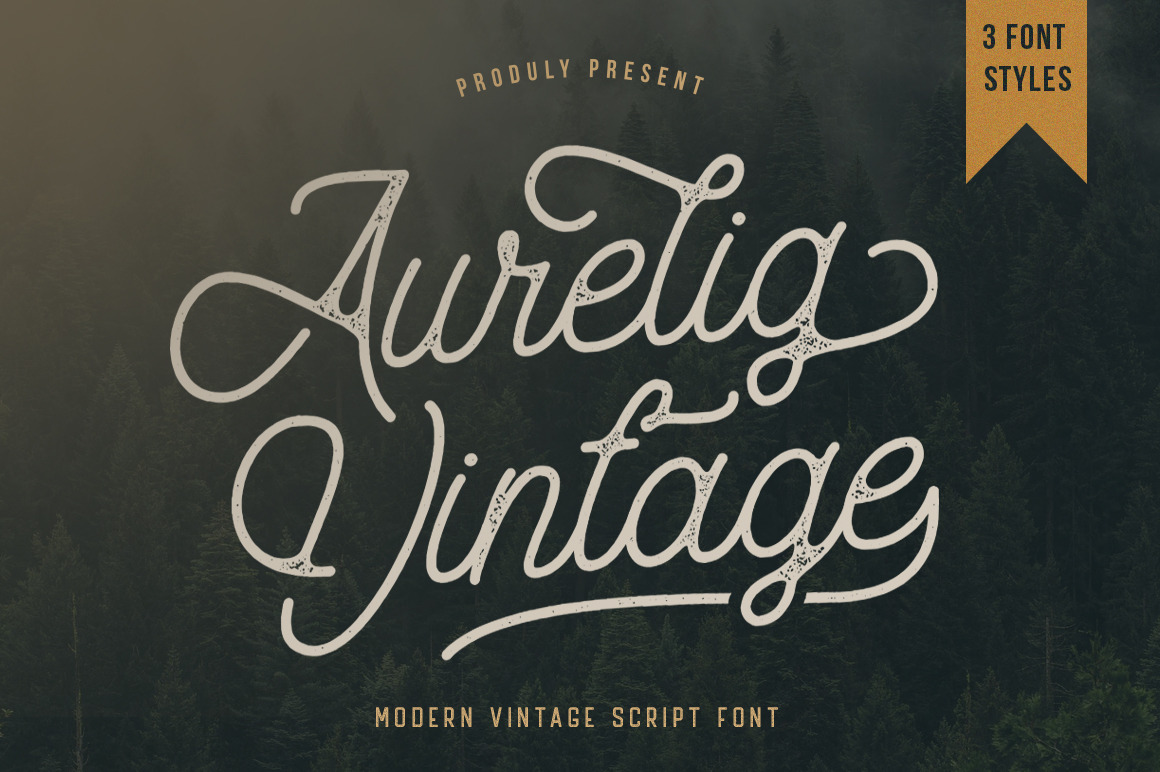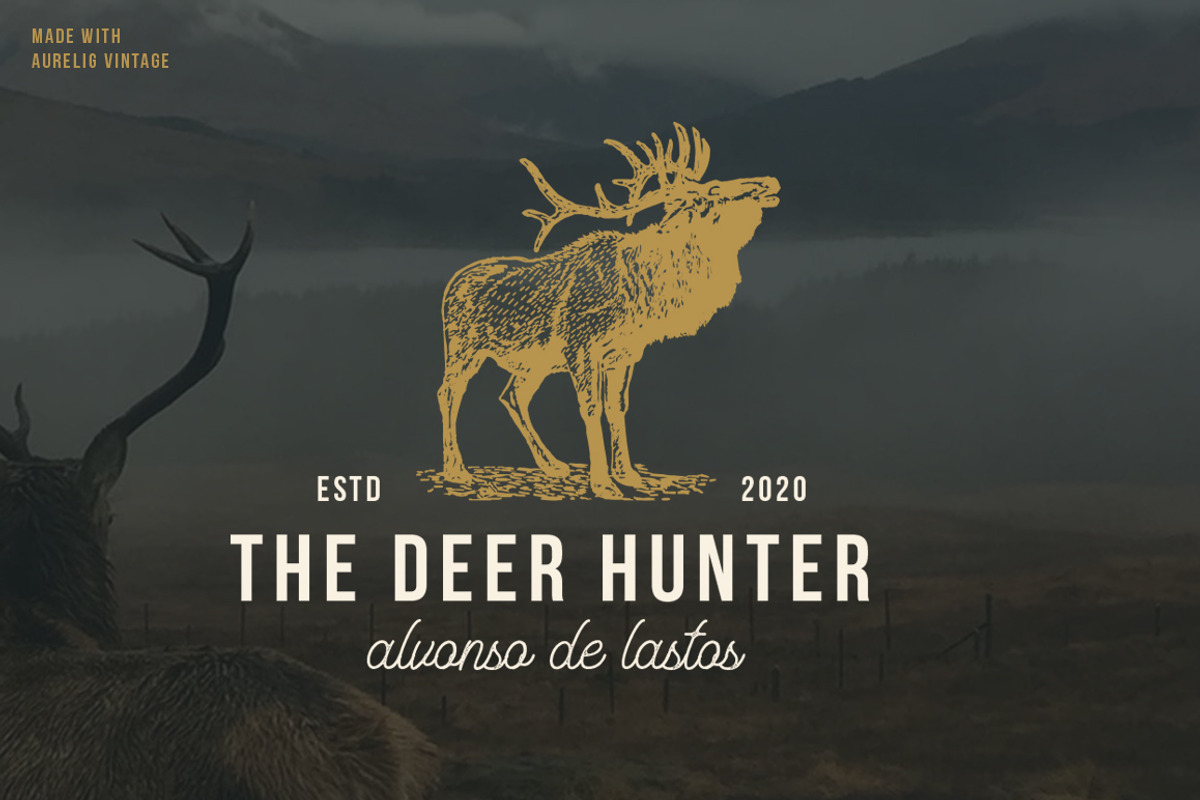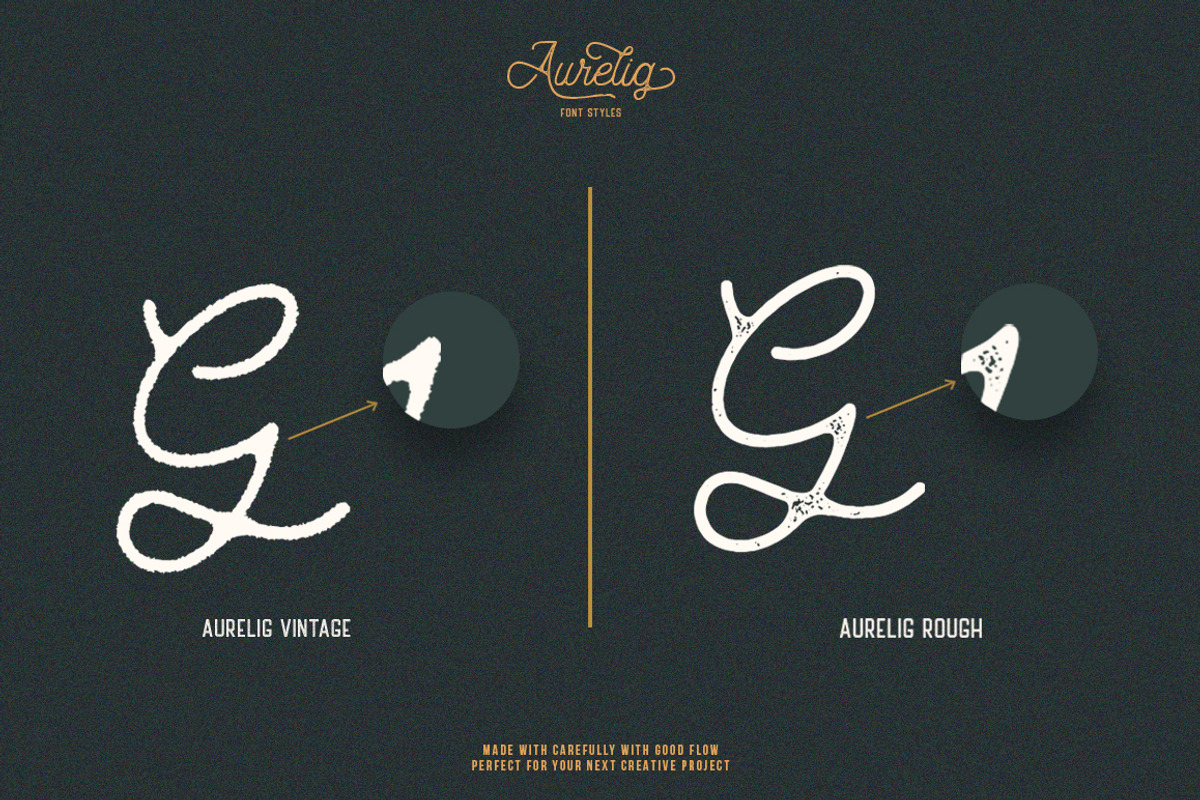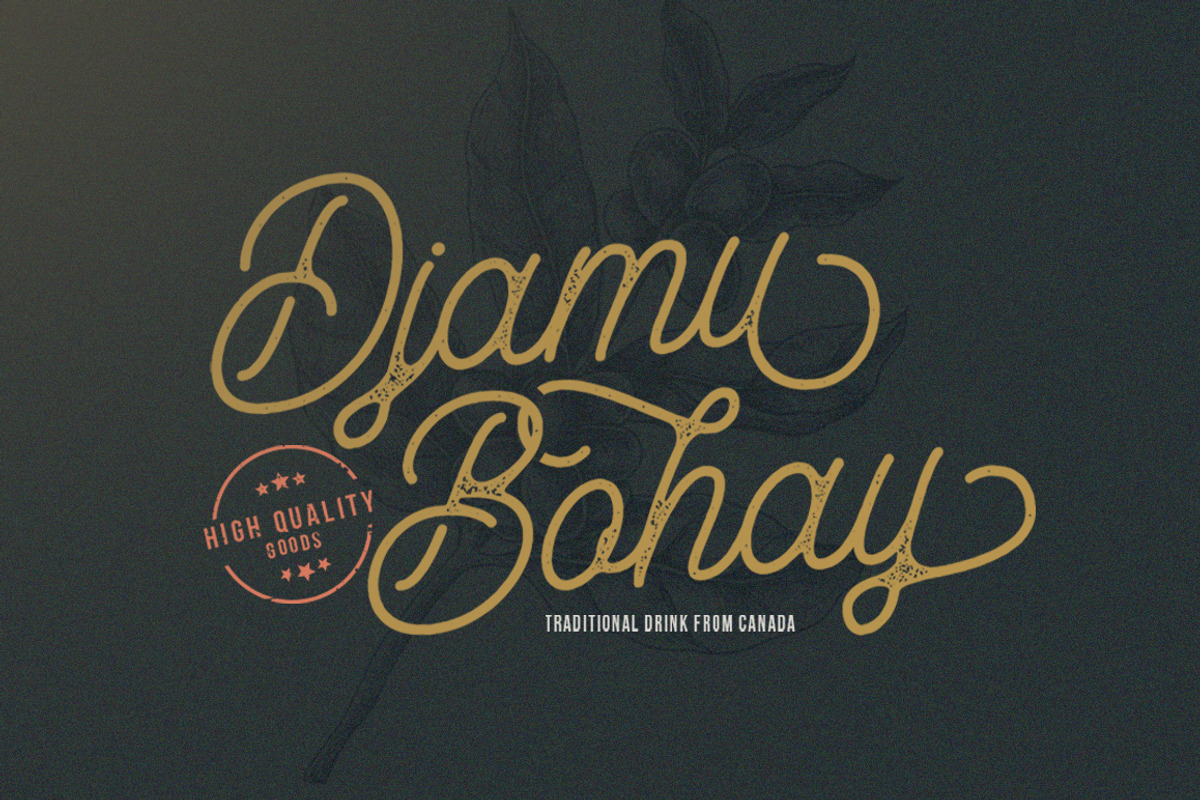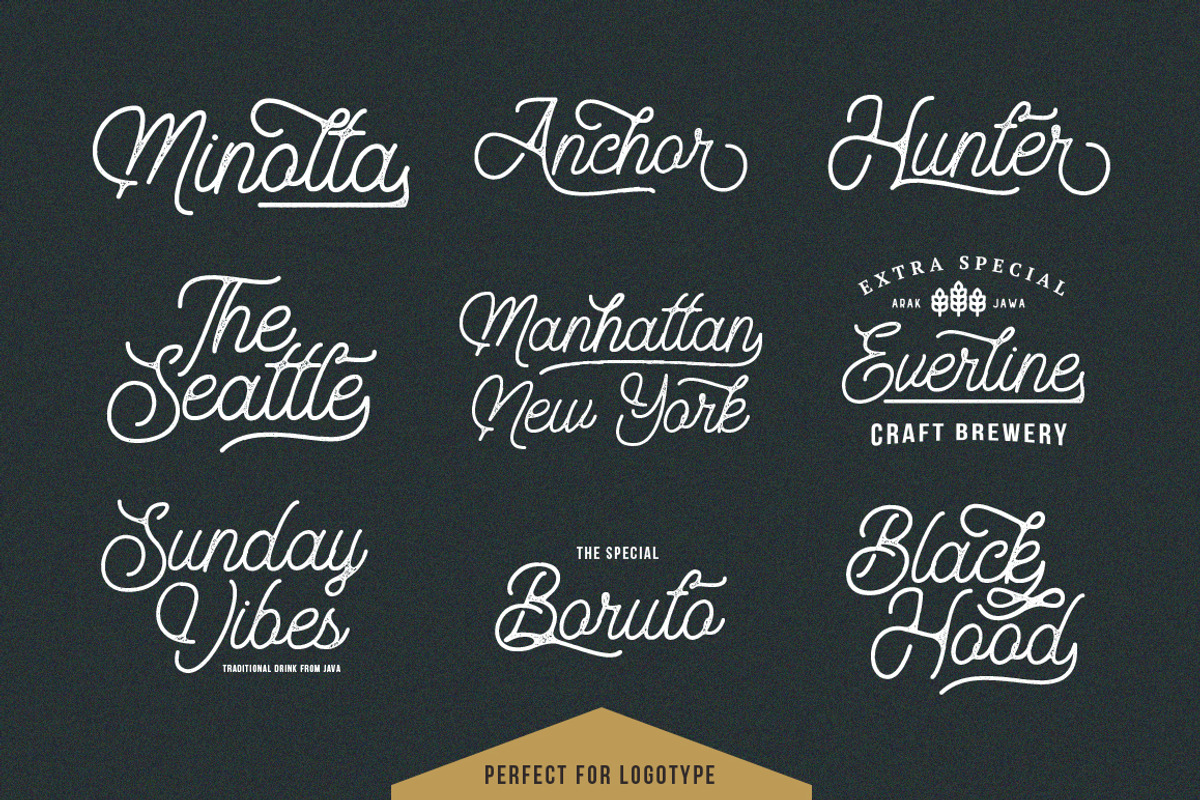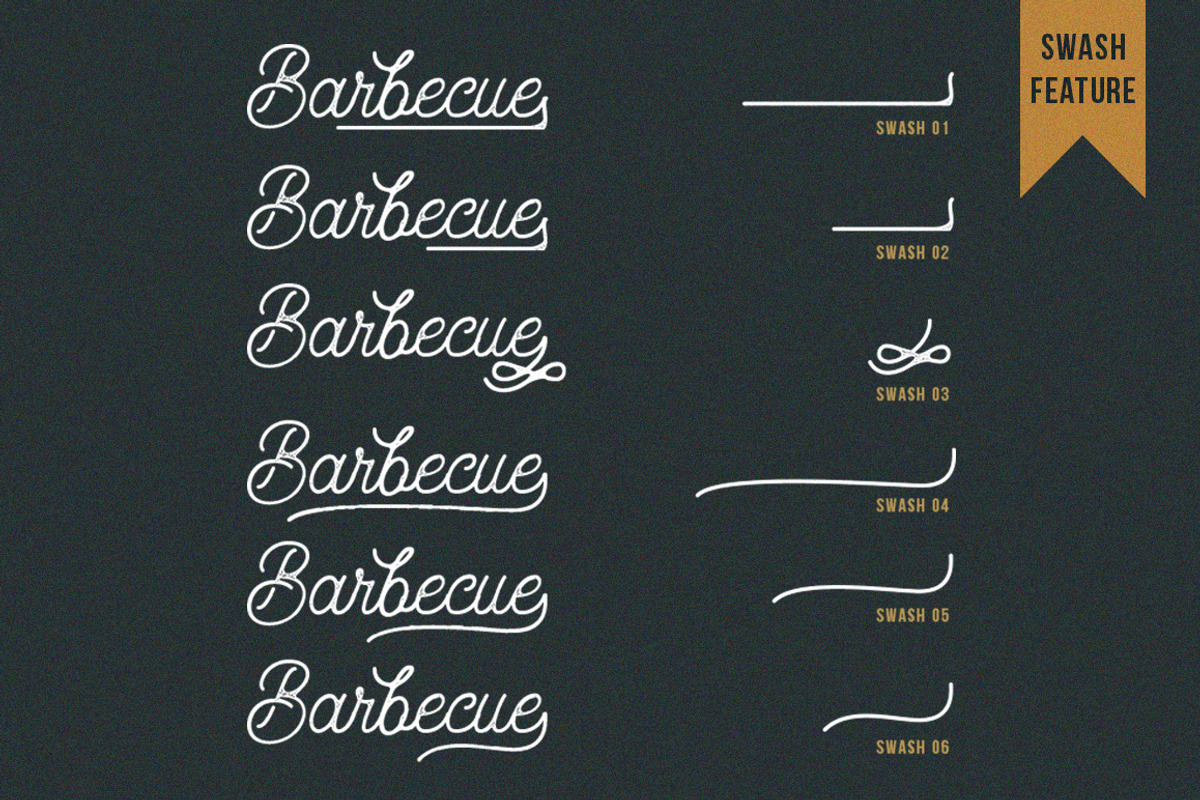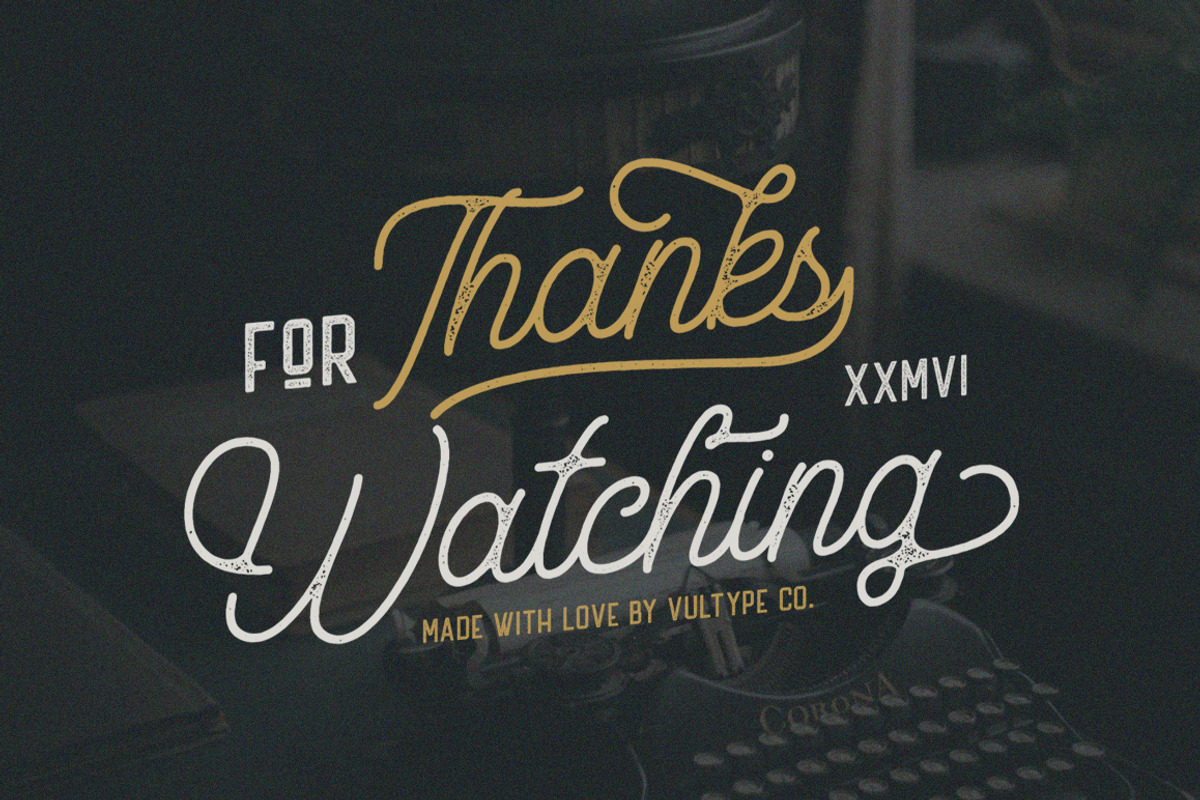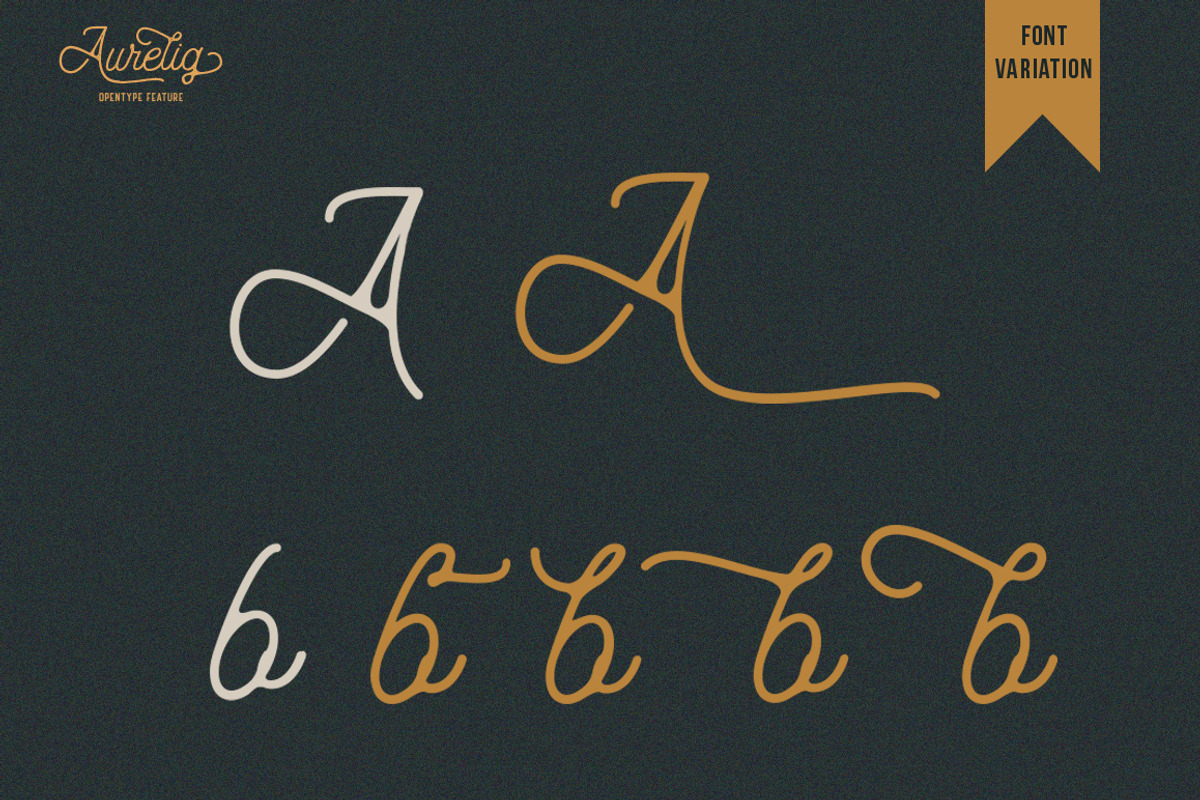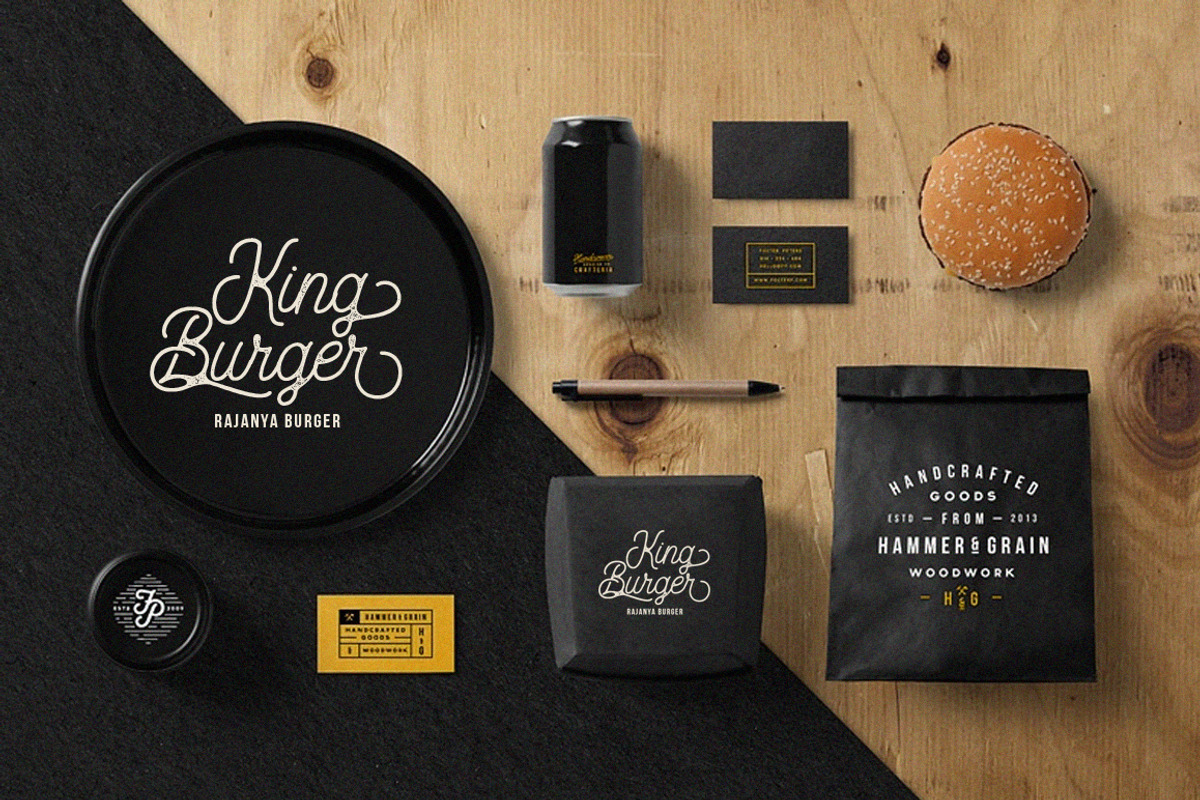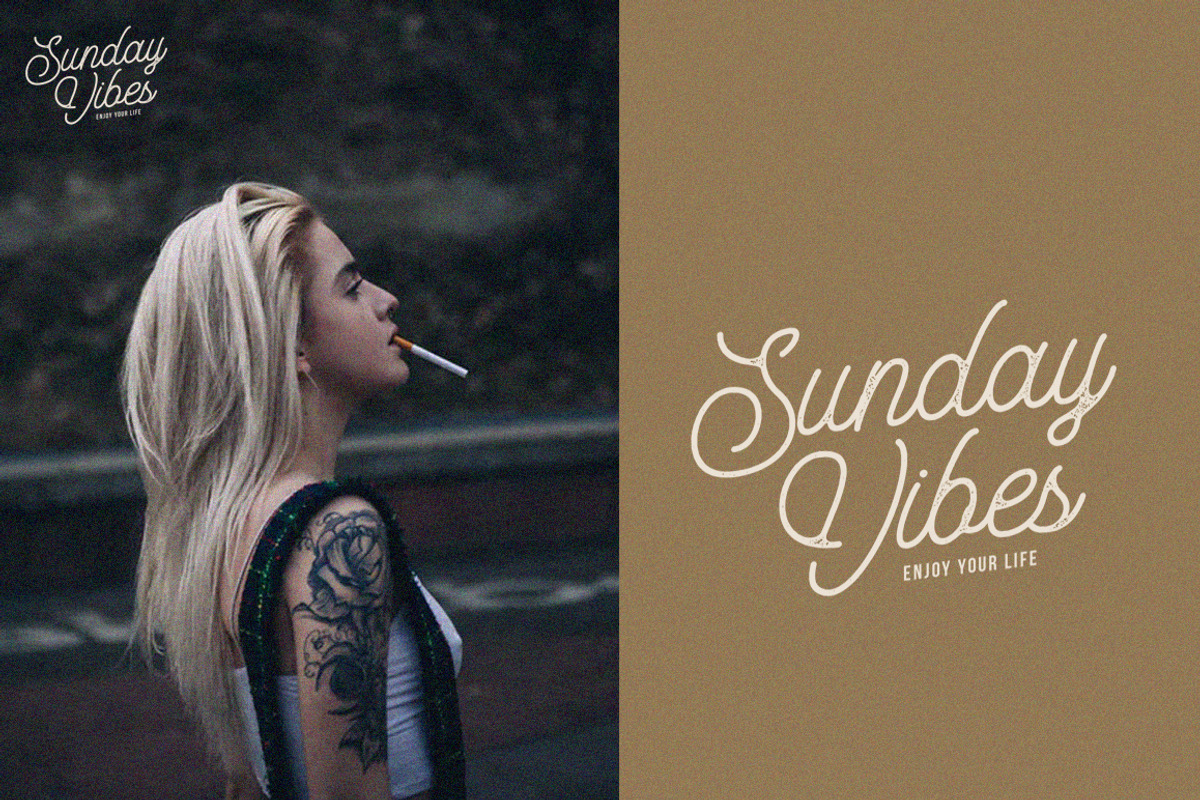
Aurelig Vintage Script (3 Fonts)
Aurelig Vintage Script with monoline style was very inspired from modern vintage and retro style
This vintage font have clean, vintage and rough version, special features such as stylistic alternates, ligatures and swashes. Also, Americus includes western european characters (multilingual support).
All characters have an imperfect shape that gives a natural look in design. It easily cooperating together and perfect for creating the traditional style logos, labels, package design, lettering for t-shirts and much others.
Multilingual support It also includes a clean version without texture. OpenType features (ligatures and alternates) helps to make your lettering more interesting. Also there is swashes alternate
This font has a vintage feel with styles stamp on each letter. great for Logotype, Branding Design, Vintage Logo Design, Digital Lettering Arts, Retro,brush font, script font, bold script, Vintage lettering, and any vintage design needs.